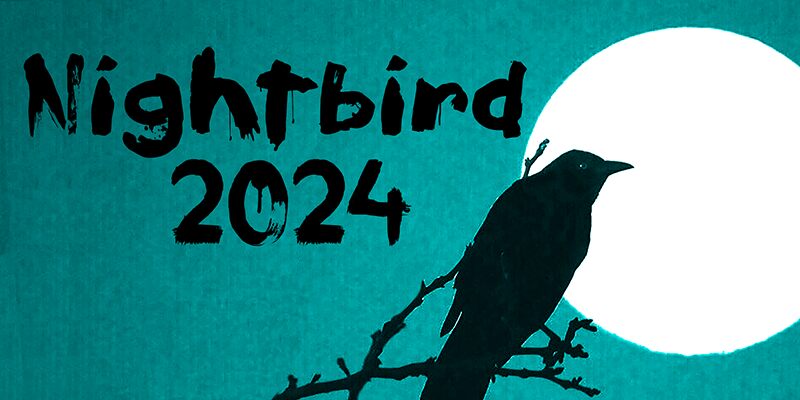
Nightbird 2024 DEMO Regular
Nightbird 2024 font by Hanoded looks like it was written on a canvas with paint and a coarse brush. Expect to see the perfect combination of roughly textured strokes with thick uneven surfaces and scratchy edges. This grungy, raw, decorative font features bold black capital blocks for an eye-catching typography experience.